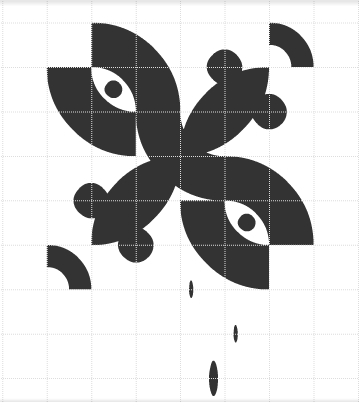
This FontOut:
(22nd July 2012)
Crazy glyphs! In honour of Abneurone Fluid Types, in this competition, you must make the craziest, most ornate, most mindblowing character you can. Please, only one glyph per sample.Entries must be created using FontStruct.
The last time you can upload a sample is 29th July 2012. Voting starts on that date.
Let's see what our FontStruct community can do!
This has been its own font for a while; I haven't finished it.
I hope this doesn't anyone but I mad ethe letter "A"
Its not the small one.
I just hope i won't be alone in that fontout. Sorry for the quantity, but that's so much my alley! I could make 100!
Super Mario Style (:
This was the "A" of a mad project i could never develop out of this A. And if i remember well, there was some crash on the file, so this was it. Still, i thought this new sophisticate sample from the jpg i had saved took its place here
Seeing it now (this one was made almost 2 years ago) makes me see how immature it was compared to the AFT above. I definitely progressed. Cheers!
Nothing compares to you, AFT! This FO will be very hard...
reminds me of Snood :)
Is that Jigsaw?!
@ architaraz : magical X, welcome to my world, do continue to explore